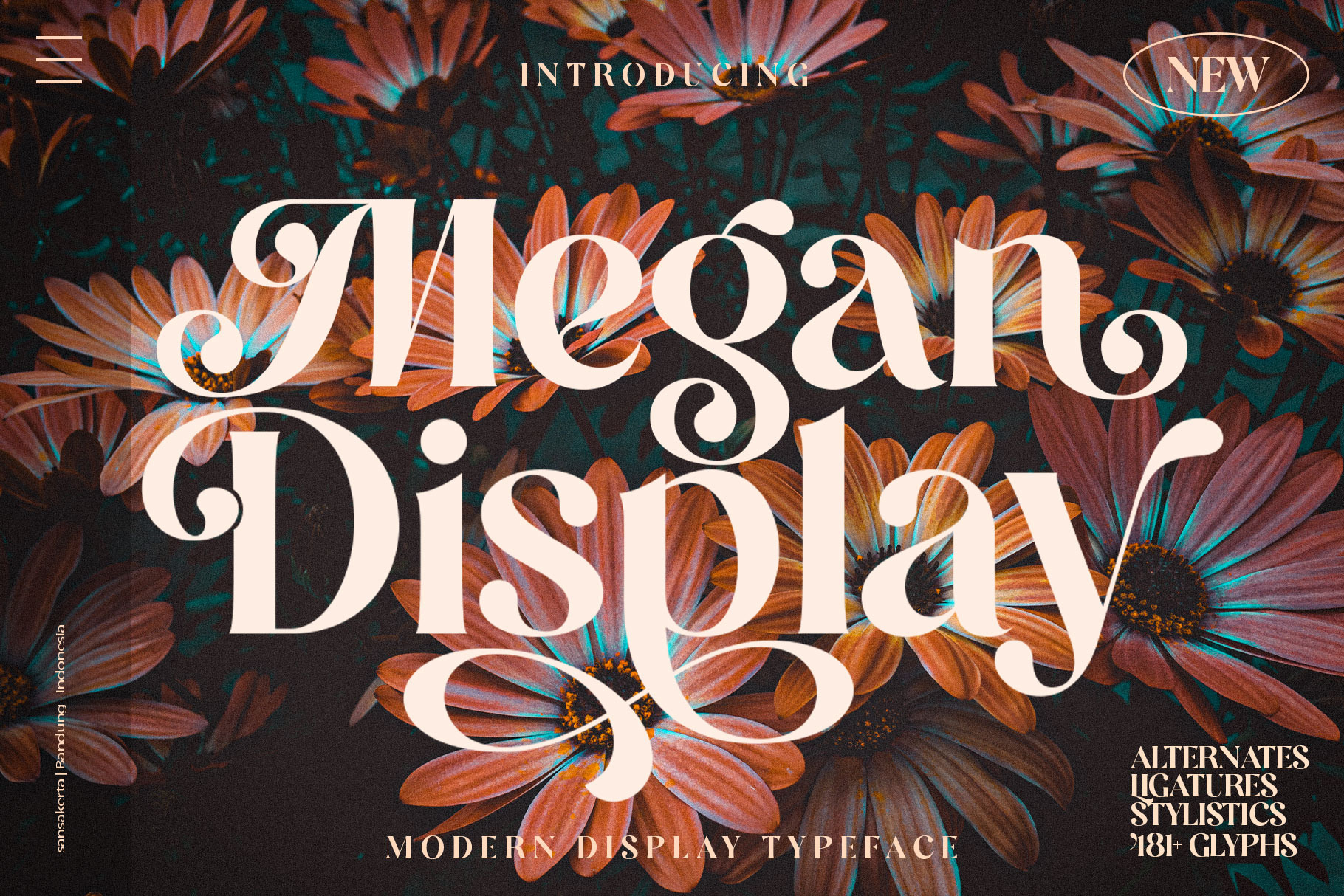
Megan is a special modern style font. Made with accurate accuracy with beautiful curves. With alternative characters and ligatures that make your work very special. It is perfect for branding design, logos, greeting cards, title packaging. and other designs. Immediately use our fonts to make your work even more amazing.
Megan DIsplay is also included full set of:
-uppercase and lowercase letters -multilingual support -numerals-punctuation -Stylistic set 1 -Stylistic set 2 -Stylistic set 3 -Stylistic set 4 -Stylistic set 5 -Ligature Characters